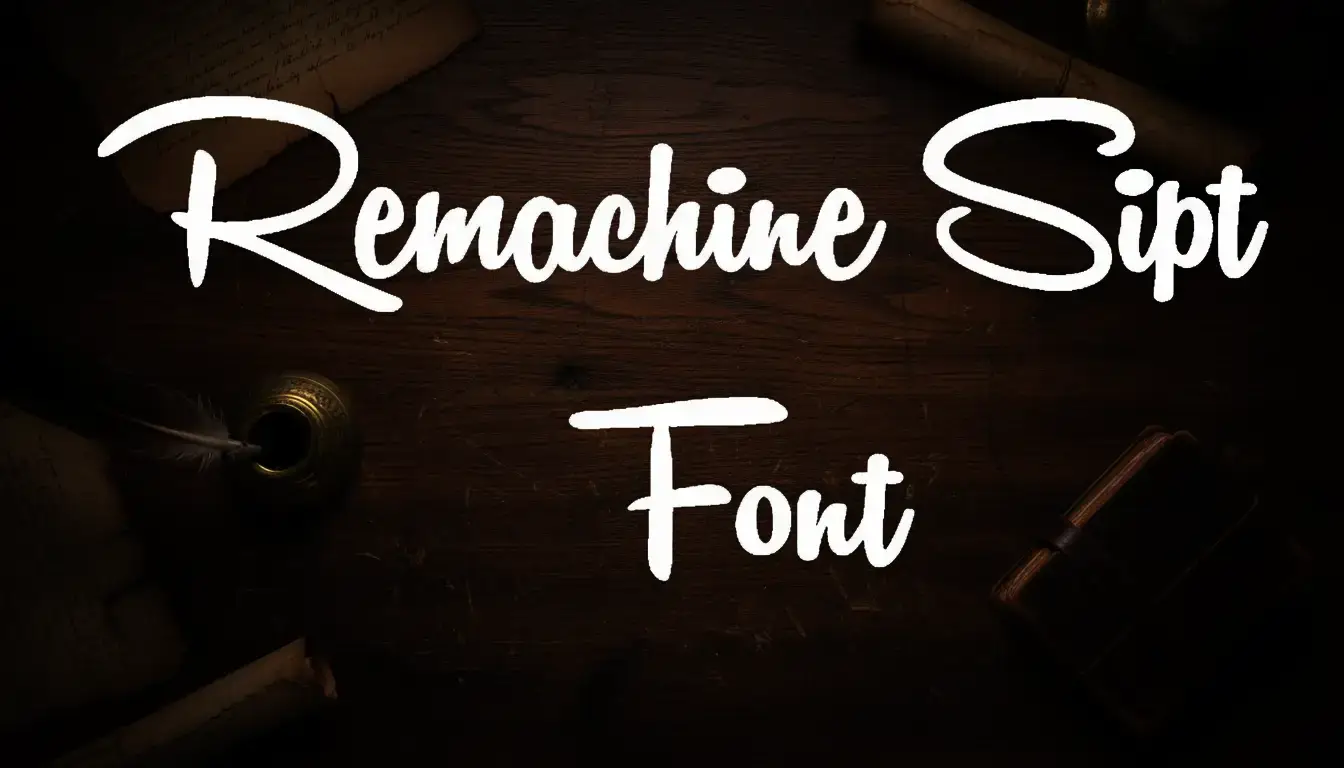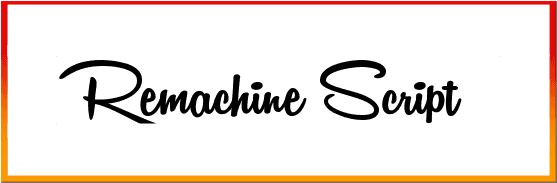
Remachine Script Font
Remachine Script
Remachine Script is a script font made by Måns Grebäck. It has that hand-lettered, flowing feel people look for when regular type seems too stiff. It's a free download, and you can try it with your own text in the preview above first.
What You Can Type With Remachine Script
Remachine Script covers the full alphabet in upper and lowercase, plus all ten numbers, so you can set names, dates and prices without switching fonts. Everyday marks like &, !, ? and @ are there too. Thanks to its accented letters, it also works for Spanish, French, German, Portuguese and Italian, not just English.
Where Remachine Script Works Best
Remachine Script is a natural fit for wedding invitations, logos and signature-style headings. Script fonts read best in short bursts, so keep it to names, titles and one-line quotes. Skip all caps: script capitals are drawn to start a word, not to fill one.
Does Remachine Script support accented letters?
Yes. Remachine Script includes the accented letters needed for Spanish, French, German, Portuguese and Italian, so it works for more than just English.